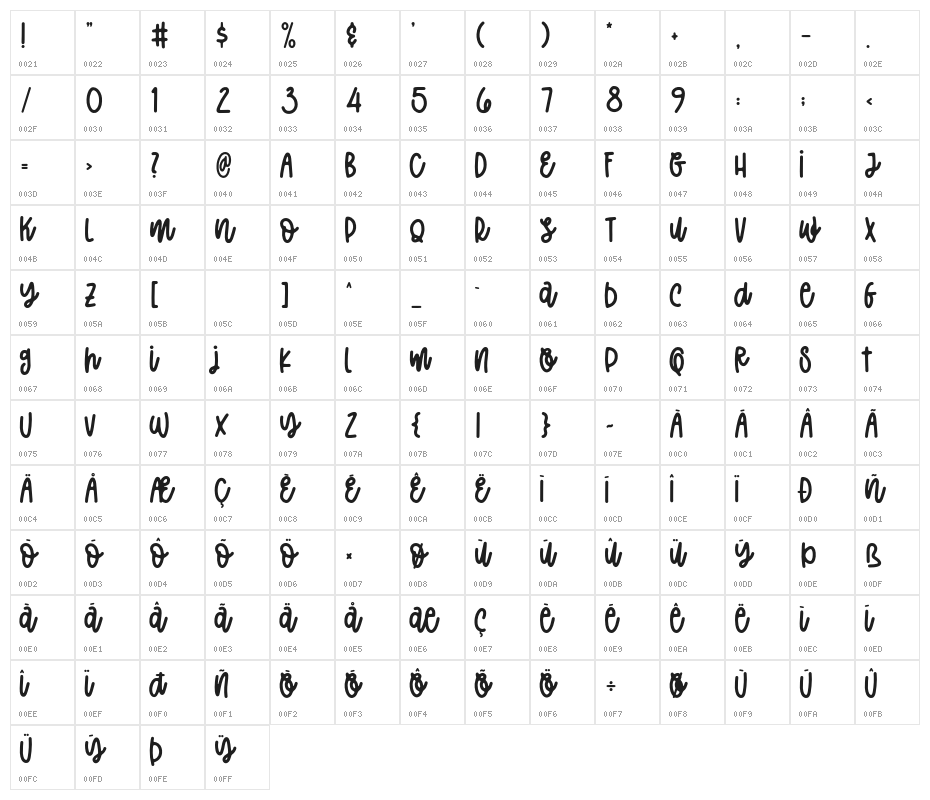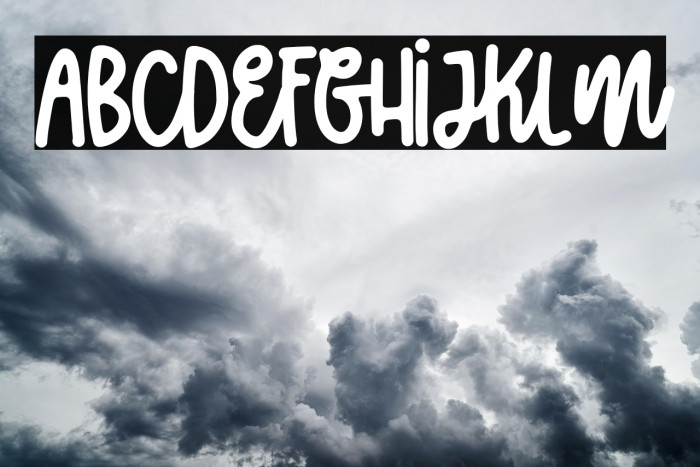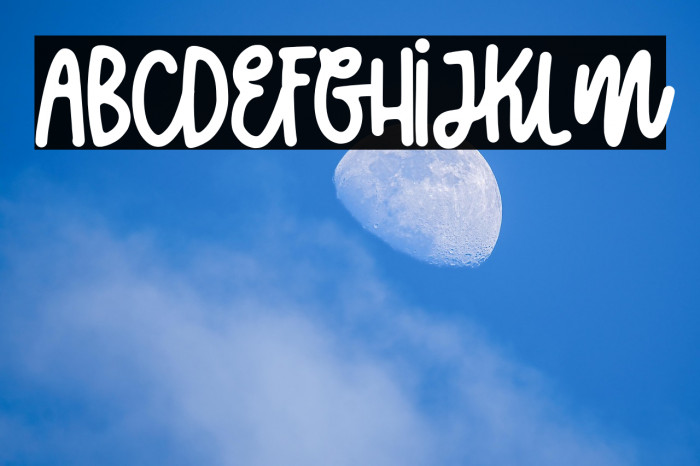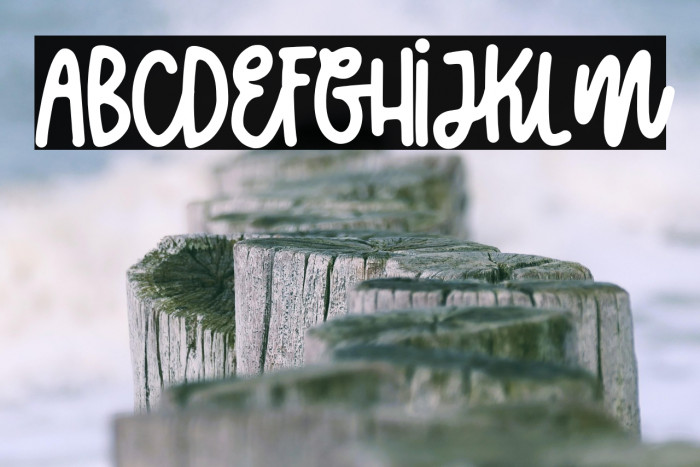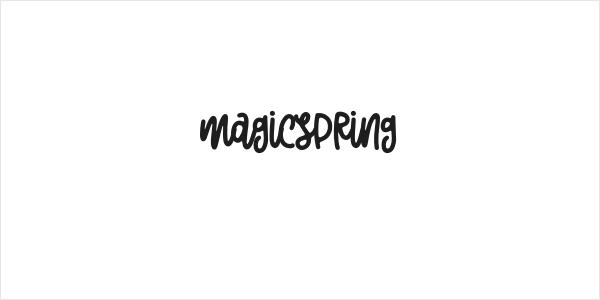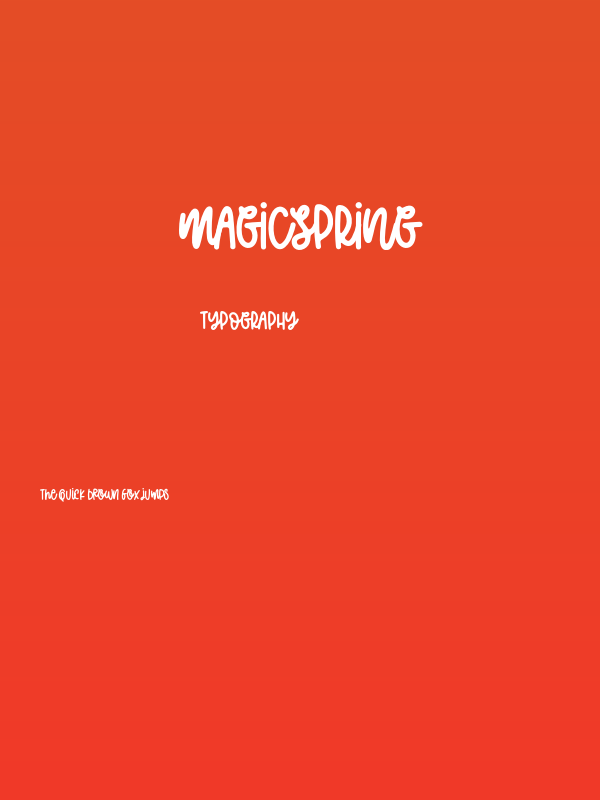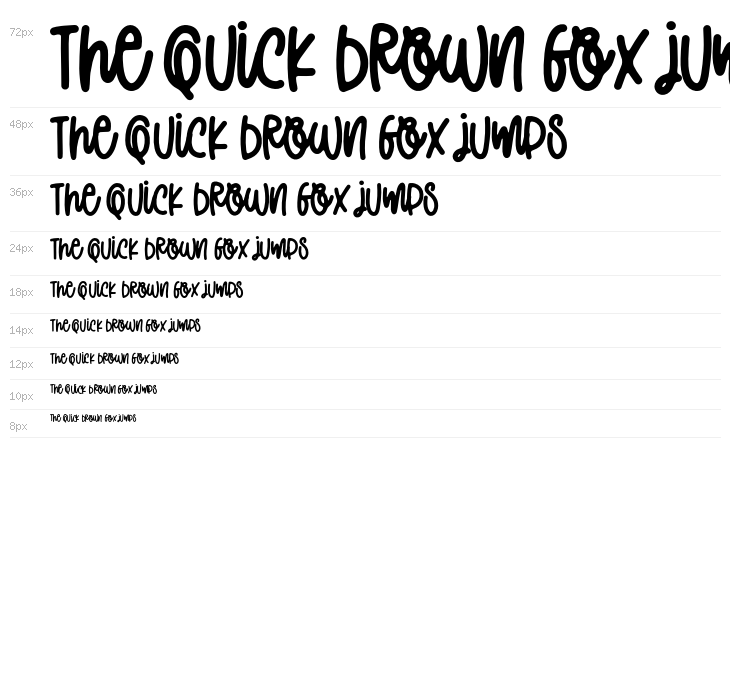
MagicSpring Font
MagicSpring Description
This playful and energetic font features bold, rounded letters with a hand-drawn aesthetic. The characters are slightly irregular, giving it a whimsical and friendly appearance. The uppercase and lowercase letters maintain a consistent style, with smooth curves and a lively bounce. Numbers and special characters follow the same playful design, making it versatile for various creative projects. The font's thick strokes and rounded edges make it highly legible, while its unique style adds a touch of personality and charm.
| Overall Style | Playful |
| Proposed Projects | Ideal for children's books, playful branding, greeting cards, and creative posters. |